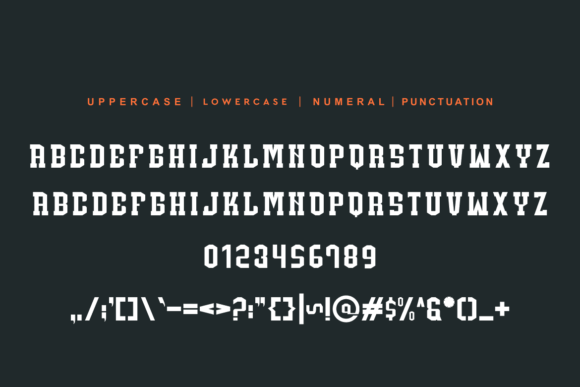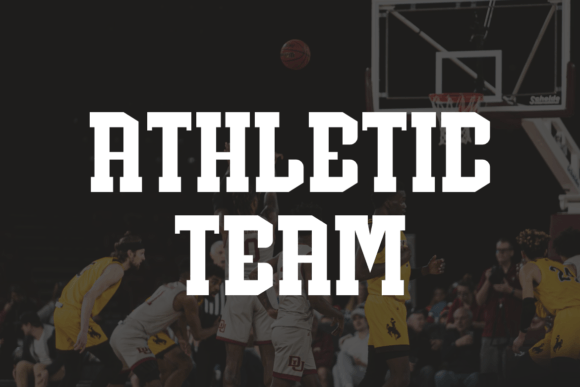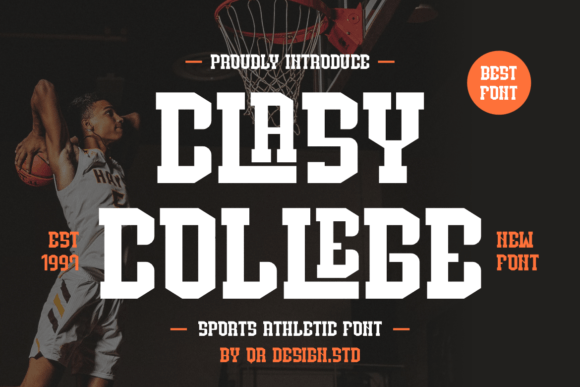
Clasy College Font
Clasy College Font is a bold and assertive sans serif font. No matter the topic, this font will be an incredible asset to your fonts’ library, as it has the potential to elevate any creation.